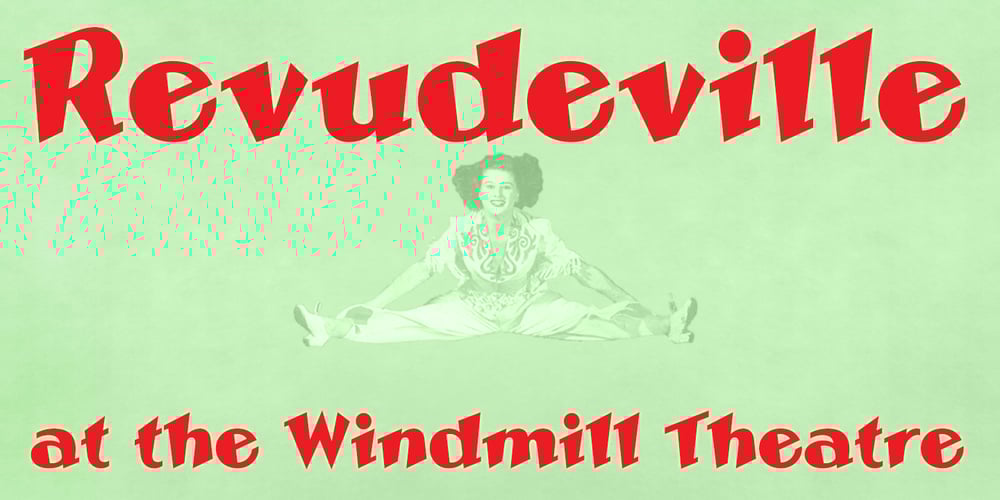
Revudeville
Revudeville font
Revudeville Font Family was designed by Keith Bates and published by K-Type. Revudeville contains 1 styles and family package options. Revudeville is a lively, informal font based on cover lettering from a 1950s Windmill Theatre souvenir programme.